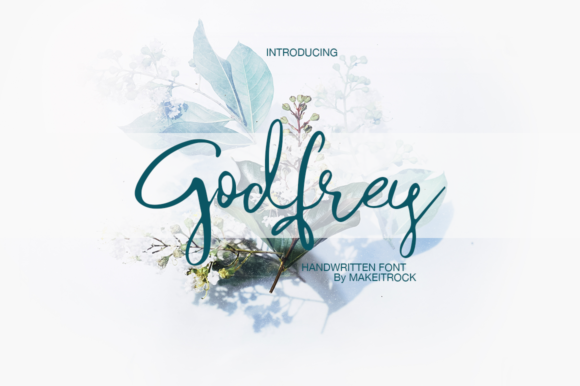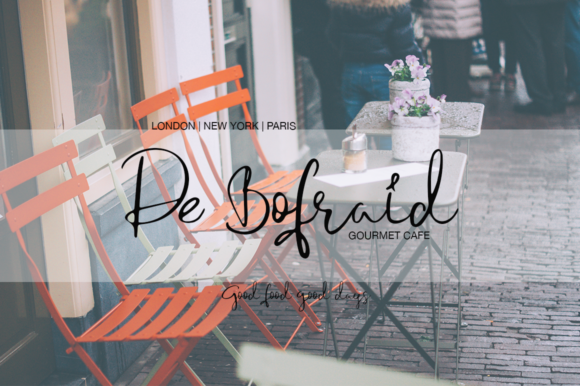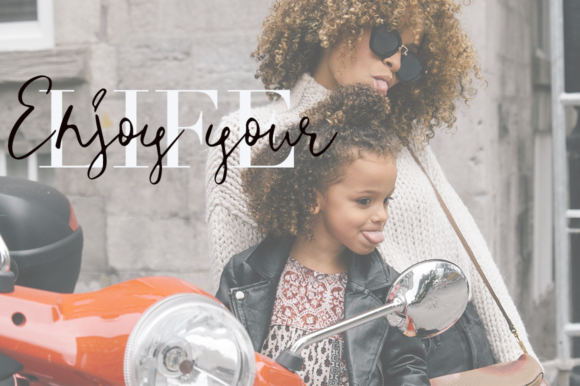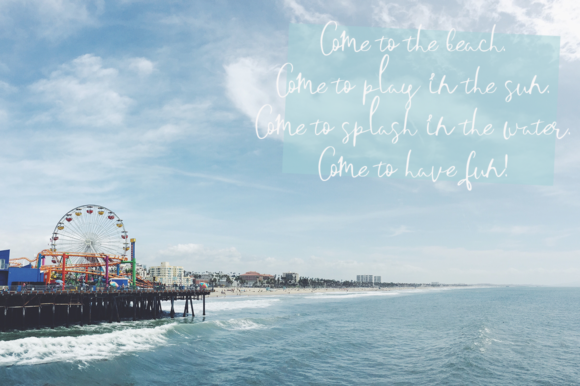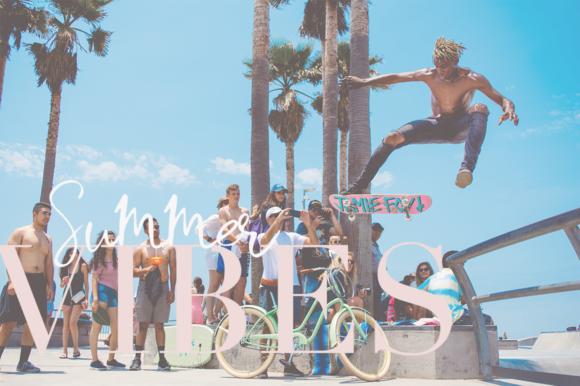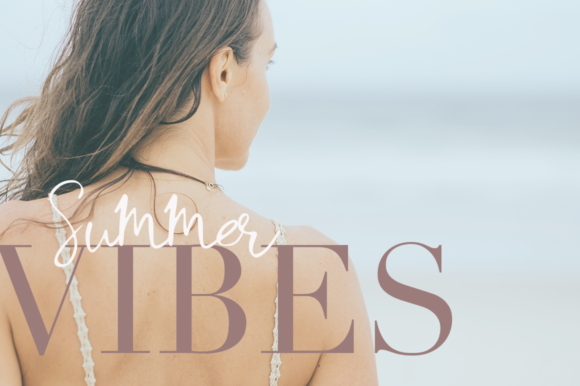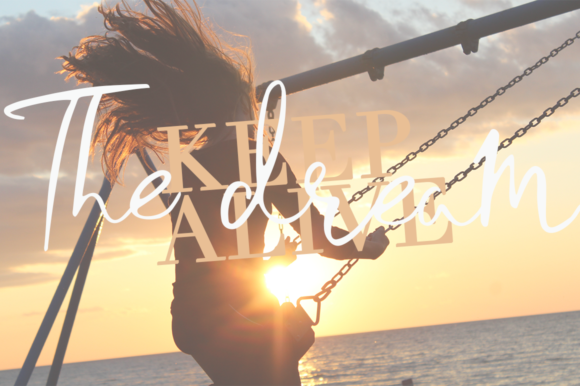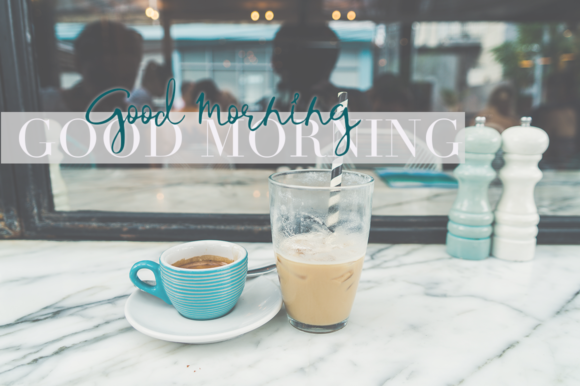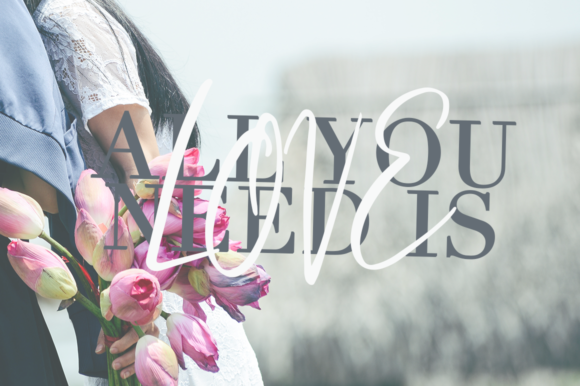
Godfrey Font
About Godfrey Font
Godfrey is a sweet handwritten typeface. Its suitable for greeting cards, branding materials, business cards, quotes, and for every other design that needs a feminine feel.